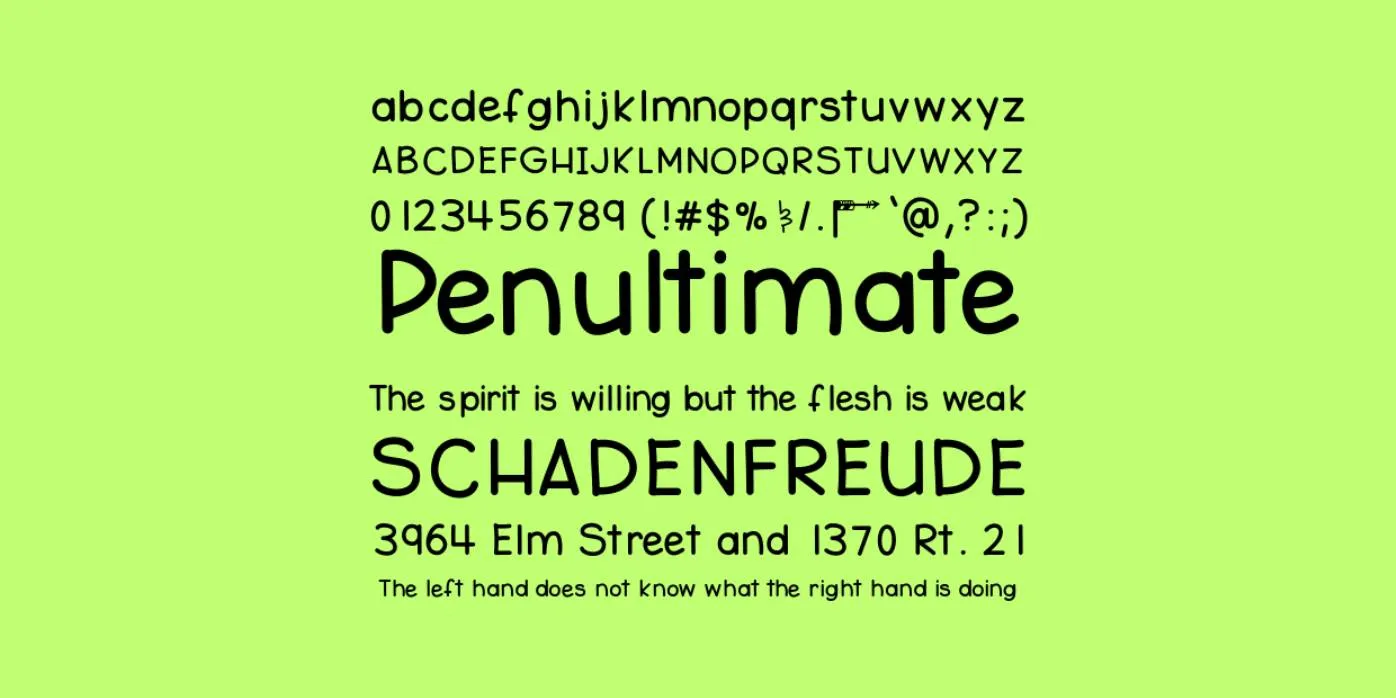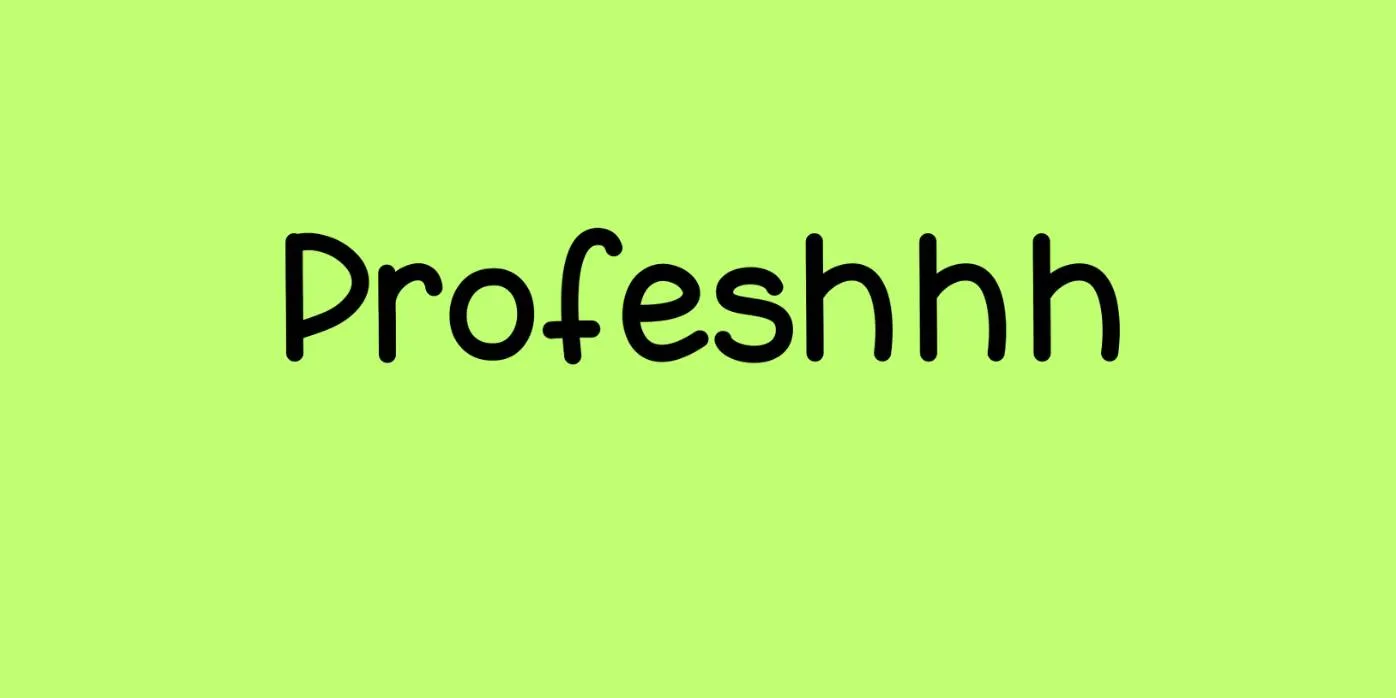
Profeshhh Font
Profeshhh Font is a handwritten type of font. Lindsey Collins is the designer of this stunning typeface. There are 109 fantastic glyphs for this typeface. The online generator tool for this typeface is easy to use.
This texture has a wide range of uses. You can beneficially utilize this texture in graphic designing, motion graphics, and web designing. This typeface is available in both OTF and TTF file formats. The characters of this typeface have support for lowercase letters, uppercase letters, numbers, and punctuation marks.